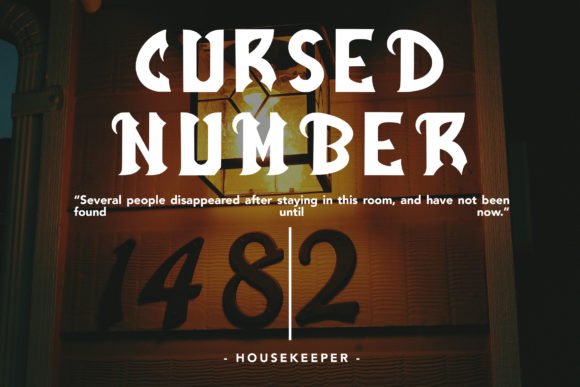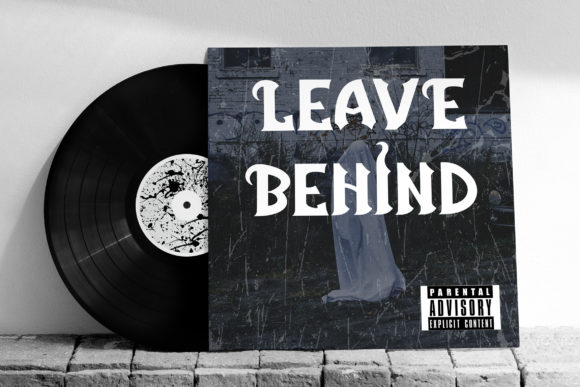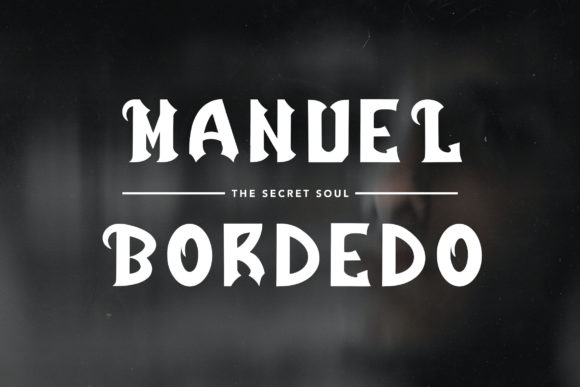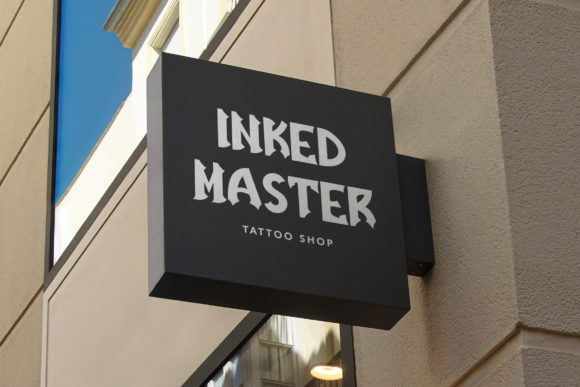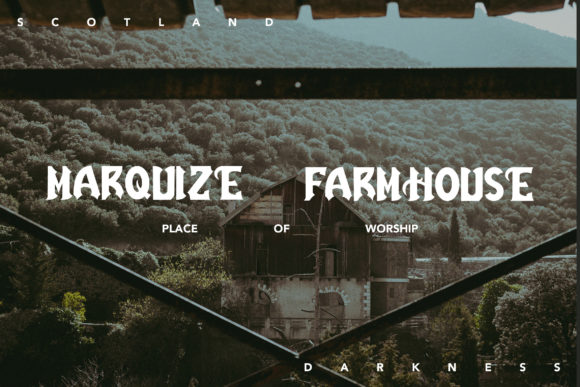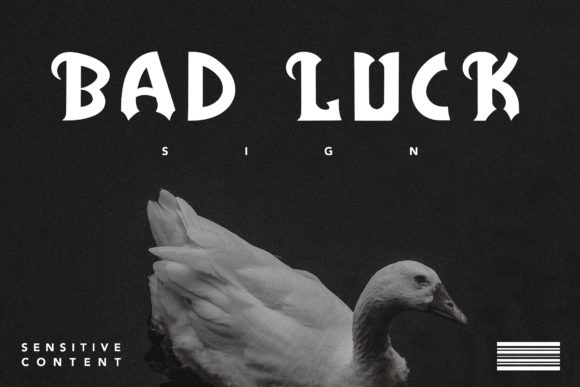
Astral Night Font: Unleash the Darkness in Your Designs
In the realm of typography, few fonts evoke the sense of mystery and intrigue that Astral Night Font embodies. This blackletter typeface, inspired by the darker corners of gothic and horror styles, is the perfect addition to any design project that demands a touch of the macabre or vintage flair. In this article, we’ll dive into the unique features of Astral Night Font, its uses, and why it’s a must-have for designers and crafters.
The Inspiration Behind Astral Night Font
Astral Night Font draws its inspiration from the rich and ornate world of gothic architecture and horror aesthetics. The font’s unique shape, characterized by intricate lines and sharp edges, is reminiscent of the mysterious and often eerie atmosphere found in old castles, abandoned mansions, and ancient tomes. This typographic masterpiece is designed to transport your audience to a world of darkness and fantasy, making it an ideal choice for projects that require a sense of drama and mystique.
Key Features of Astral Night Font
Astral Night Font boasts several key features that make it a standout in the world of typography:
- Unique Blackletter Style: Astral Night Font’s blackletter style is a nod to the traditional Gothic scripts of the Middle Ages, with a modern twist that makes it perfect for contemporary designs.
- PUA Encoding: This font is PUA (Private Use Area) encoded, which means that you can access all the glyphs and swashes with ease, giving you unparalleled creative control.
- Vintage and Dark Themes: Astral Night Font is specifically designed to excel in projects with a dark or vintage theme, making it a versatile choice for a wide range of applications.
Uses of Astral Night Font
Astral Night Font’s versatility makes it suitable for a variety of design projects, including:
- Horror and Fantasy Fiction: Create eerie and captivating titles for horror novels, comics, and fantasy stories.
- Graphic Design and Branding: Add a touch of mystery and sophistication to your brand identity, packaging, and advertising materials.
- Crafting and Scrapbooking: Use Astral Night Font to add a vintage or gothic flair to your scrapbooking and crafting projects, such as journaling, card-making, and paper crafting.
- Web Design and Digital Media: Incorporate Astral Night Font into your website design, social media graphics, and digital media to create a lasting impression.
Why Choose Astral Night Font?
With so many fonts available, why choose Astral Night Font? Here are a few compelling reasons:
- Unparalleled Uniqueness: Astral Night Font’s distinctive style sets it apart from more traditional fonts, ensuring your designs stand out from the crowd.
- Ease of Use: The font’s PUA encoding makes it easy to access and use the various glyphs and swashes, saving you time and effort.
- High-Quality Design: Astral Night Font is crafted with attention to detail, ensuring a high level of quality and consistency in your designs.
Astral Night Font is a powerful tool for designers and crafters looking to add a touch of darkness and mystery to their projects. With its unique blackletter style, PUA encoding, and versatility, this font is perfect for a wide range of applications. Whether you’re working on a horror fiction novel, a graphic design project, or a crafting endeavor, Astral Night Font is sure to unleash the darkness in your designs and leave a lasting impression on your audience.